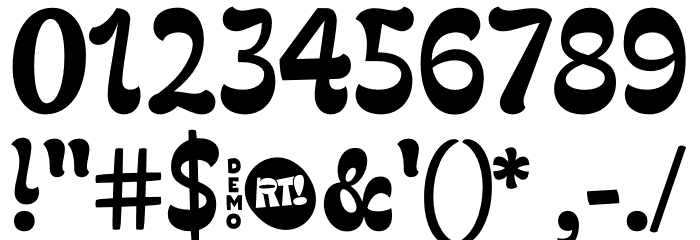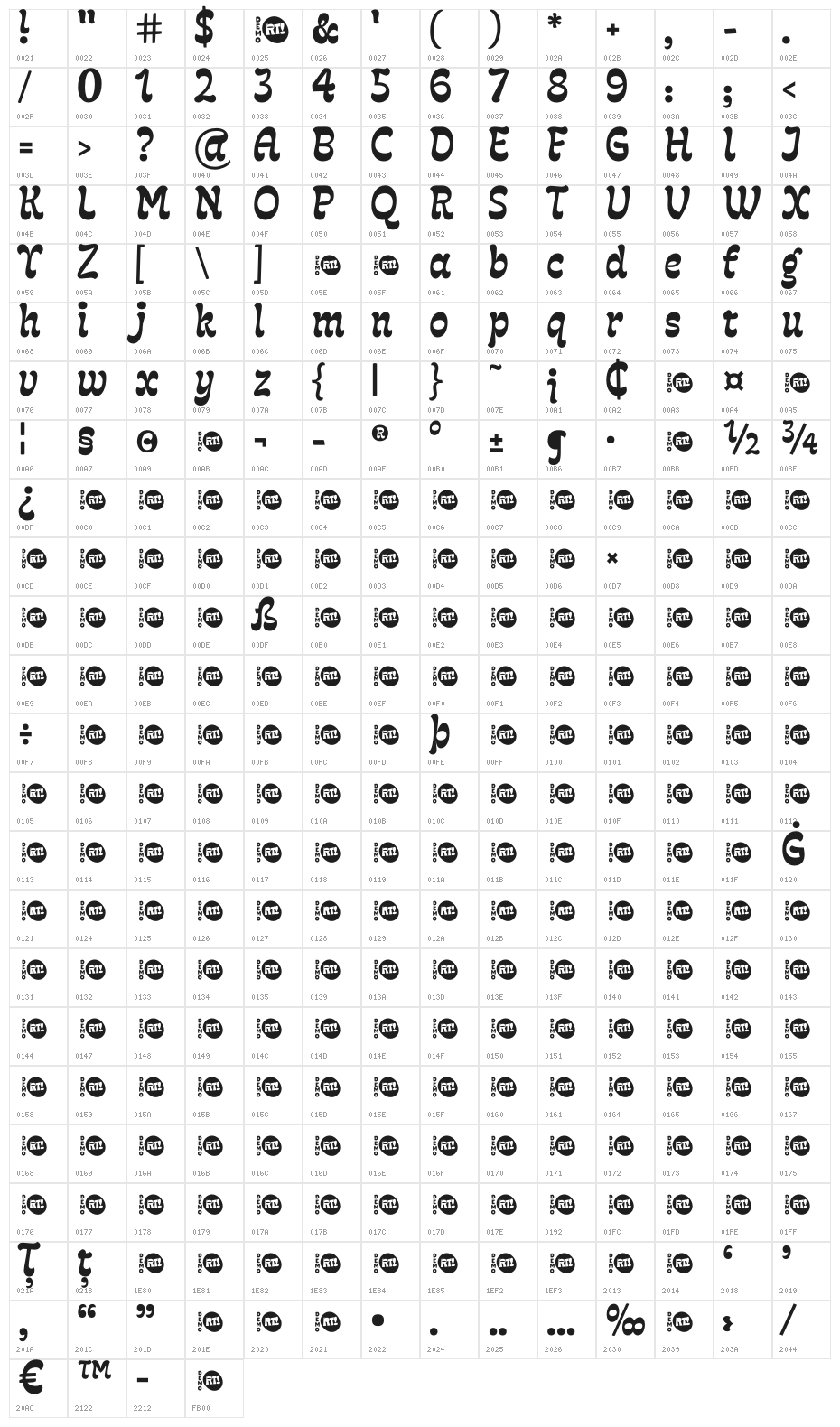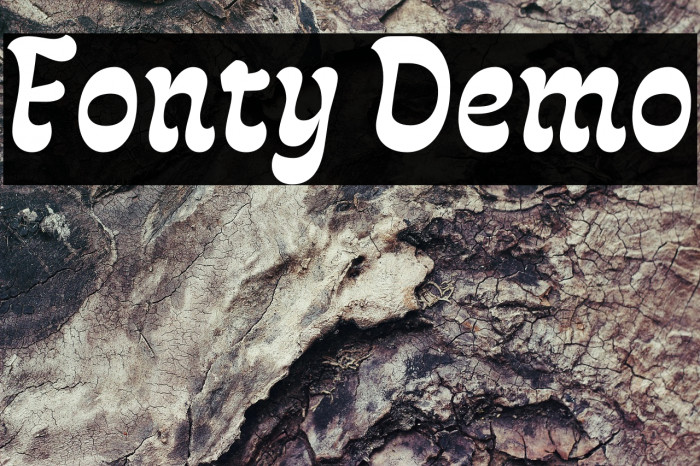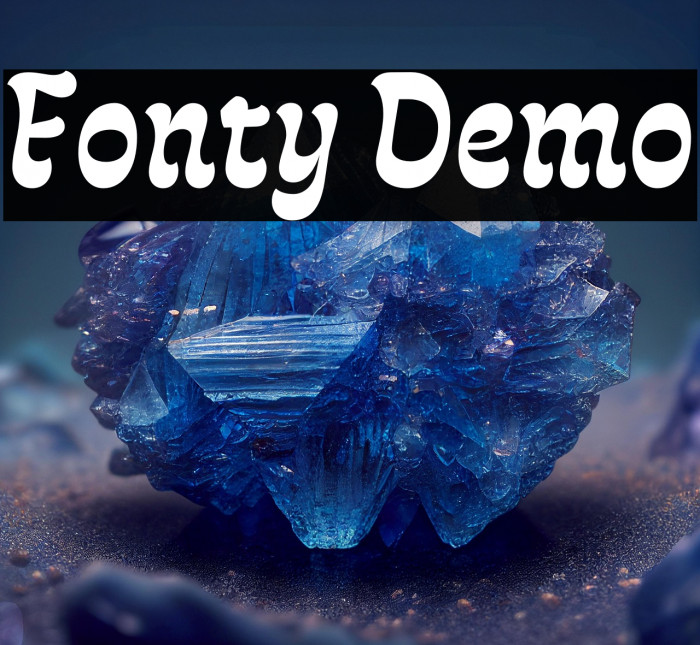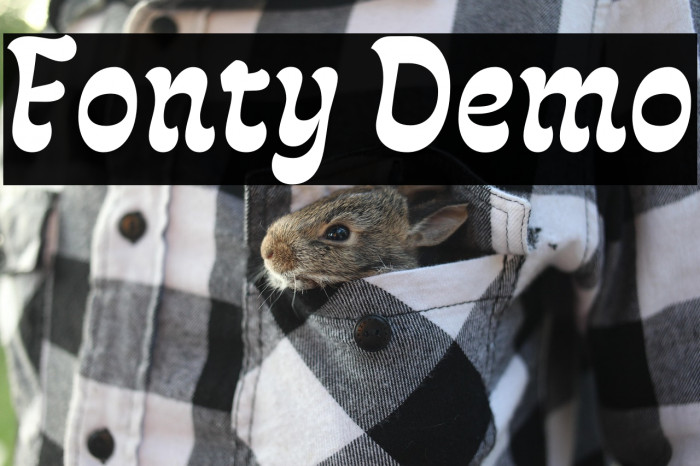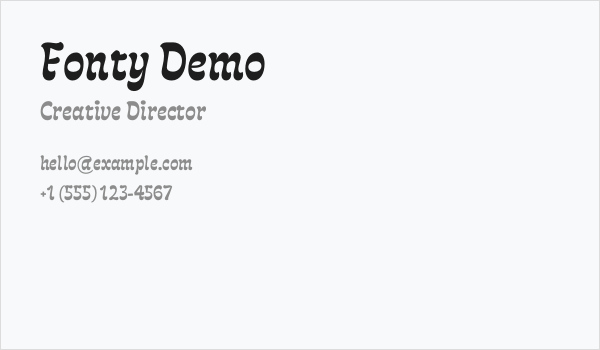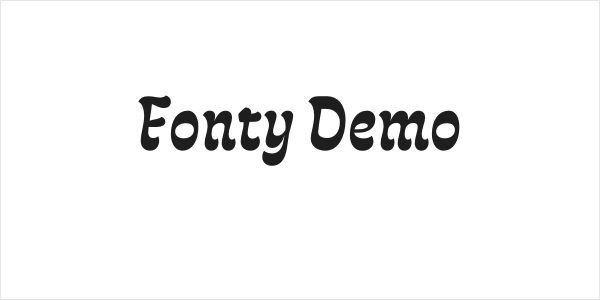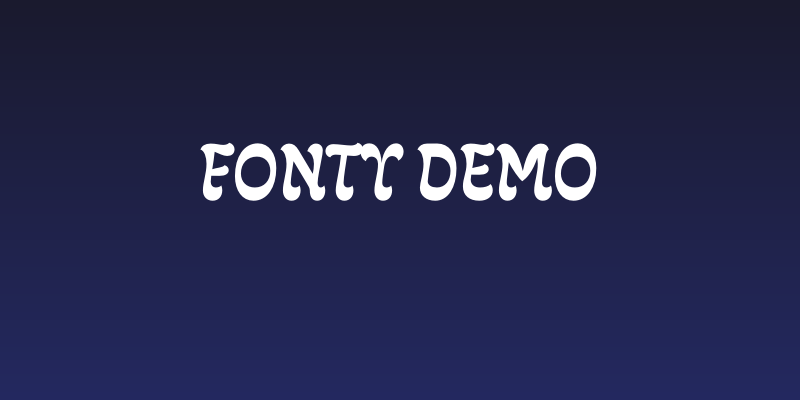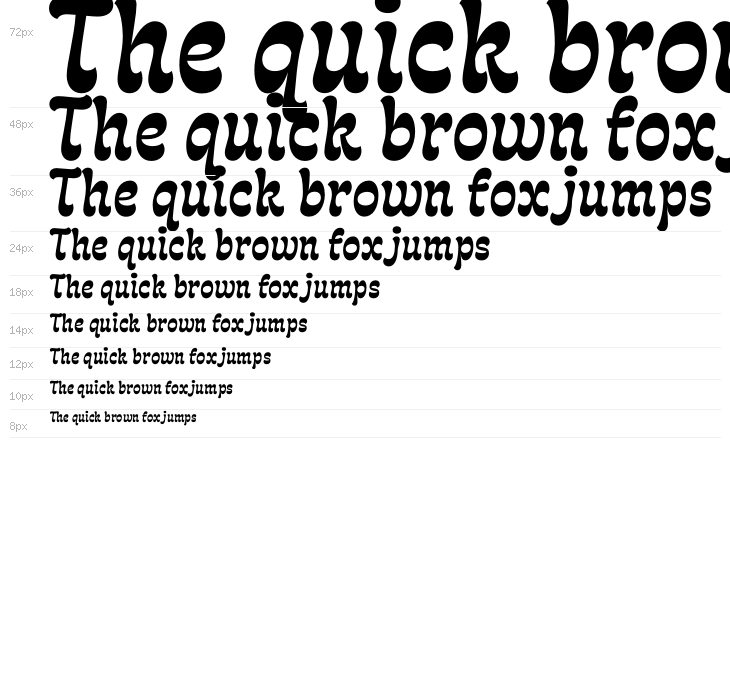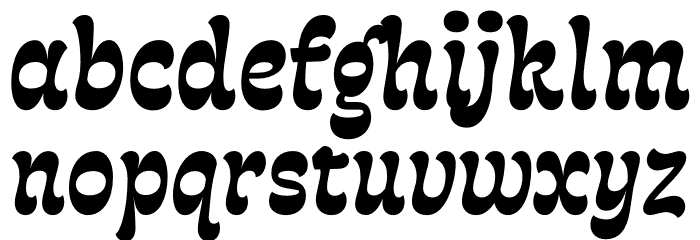
Fonty Demo Font
Fonty Demo Description
This font features a playful and bold design with rounded edges and a slightly whimsical style. The characters are thick and have a consistent weight throughout, giving them a strong presence on the page. The uppercase and lowercase letters maintain a uniform look, with smooth curves and a slight slant that adds a dynamic feel. The numbers and special characters are equally bold, ensuring readability and consistency across all text elements. This font's unique style makes it suitable for creative and informal projects.